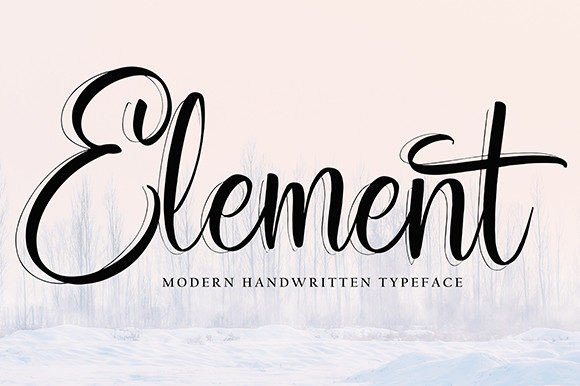
The Perfect Script: Discover the Elegance of Element Font
As designers, we’ve all been there – staring at a blank page, trying to convey the perfect message, but struggling to find the right words to express ourselves. It’s moments like these that remind us of the importance of typography in elevating our creative work. A well-chosen font can make all the difference, transporting your audience to a world of elegance and sophistication.
Enter Element Font – a stunning script font that embodies the essence of timeless classic calligraphy. Designed to enhance the beauty of your projects, Element Font strikes a perfect balance between form and function, making it the perfect companion for designers seeking to add a touch of sophistication to their work.
With Element Font, you’ll be able to convey your message with poise and confidence, making it an invaluable addition to any designer’s toolkit. Whether you’re working on a luxury brand, a wedding invitation, or a high-end magazine, Element Font is sure to leave a lasting impression.
Key Features of Element Font
- Unique Characteristics: Element Font features a unique blend of modern and classic design elements, making it perfect for designs that require a touch of sophistication and elegance.
Review of Element Font
Overall, I was quite impressed with the Element Font. Here are some of its strengths: ✨
- Unique and modern design: The Element Font boasts a sleek and contemporary aesthetic that’s sure to make your designs stand out.
- Highly legible: The font is incredibly easy to read, making it perfect for a wide range of applications, from body text to headings.
- Comprehensive character set: The Element Font includes a vast array of characters, including a wide range of languages and special characters.
However, I did encounter a few limitations: ⚠️
- Limited customization options: While the Element Font looks great out of the box, there aren’t many options for tweaking the design to fit your specific needs.
Overall, I’d say the Element Font is a solid choice for anyone looking for a modern, legible font. While it may have some limitations, its strengths make it well worth considering for your next design project.
Getting the Most Out of Element Font
Experiment with different font sizes, colors, and styles to create a visually appealing design. Use Element Font in combination with other design elements, such as images and shapes, to add depth and interest to your design.
Element Font is ideal for use in headings, titles, and body text in various design projects, such as:
- Business cards and resumes